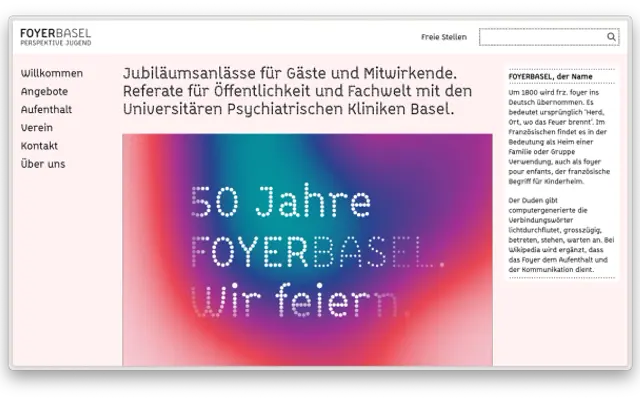
BDot
A dot-based display typeface by André Baldinger, designed in 1997 and released in 2023, built on optically placed points inspired by early electric-bulb illuminated lettering.
Rather than placing dots on a fixed grid, Baldinger positions each point individually on an optical basis across six weights, from ExtraThin to ExtraBold. As the weight increases, the dots grow larger while their centres remain fixed, eventually merging into a solid line with indentations in the heaviest cuts. BDot shares its skeleton and proportions with the companion family BLine, allowing the two to combine freely in print and animation work.
BDot uses individually placed dots to form letterforms inspired by early electric-bulb illuminated signage, making it a display face with a clear decorative and historical reference rather than a conventional text category.